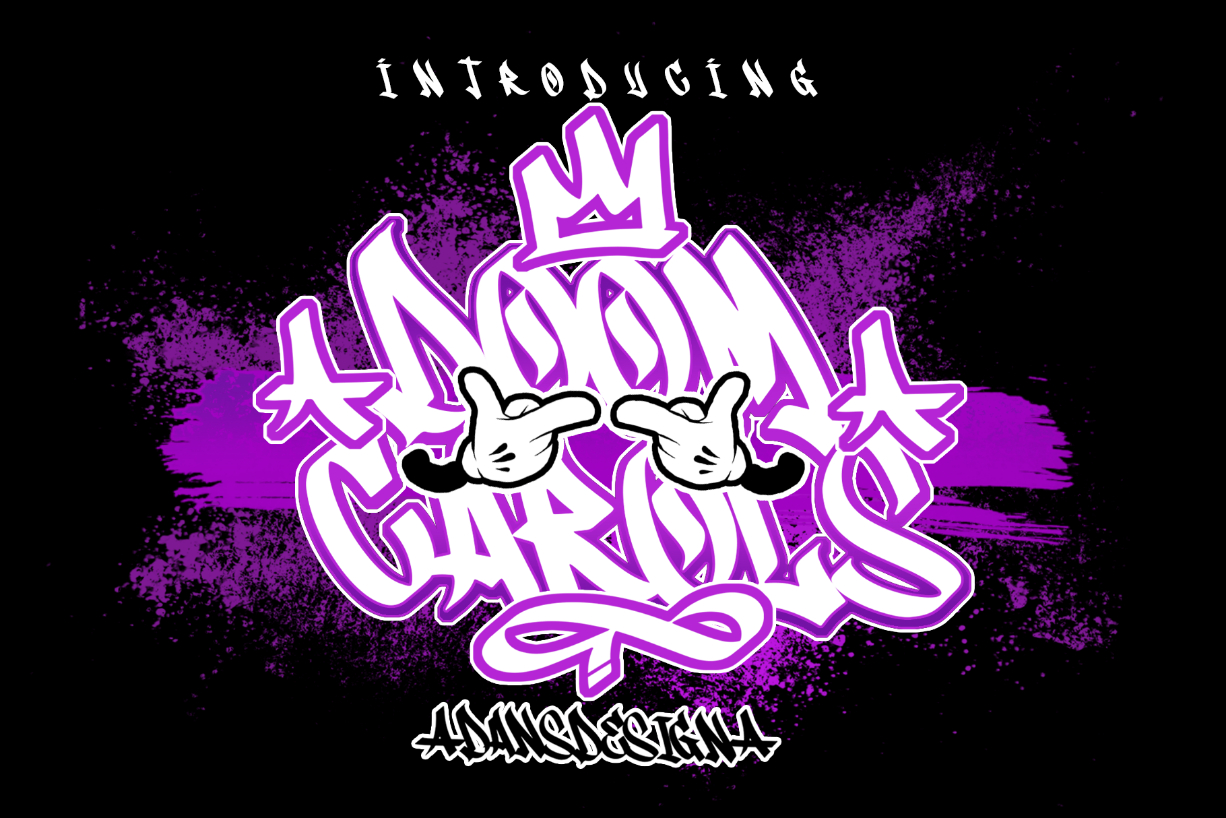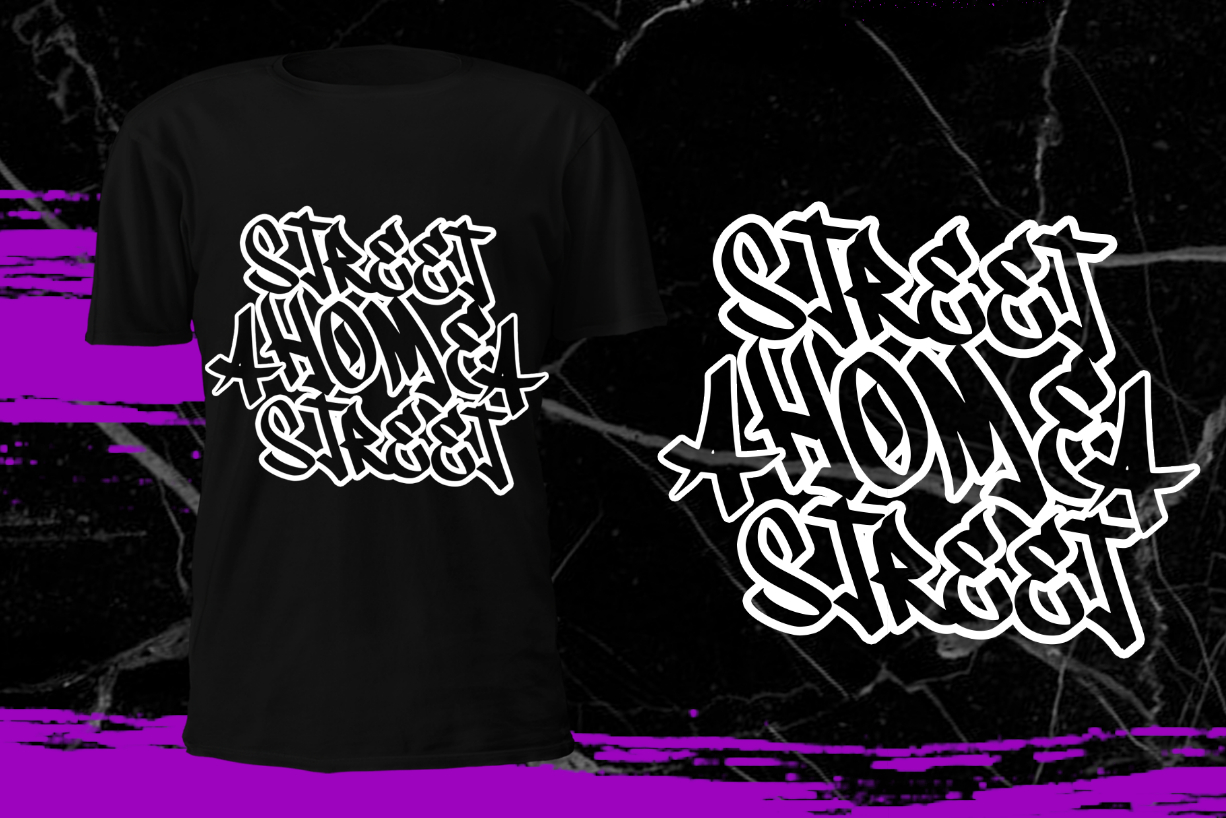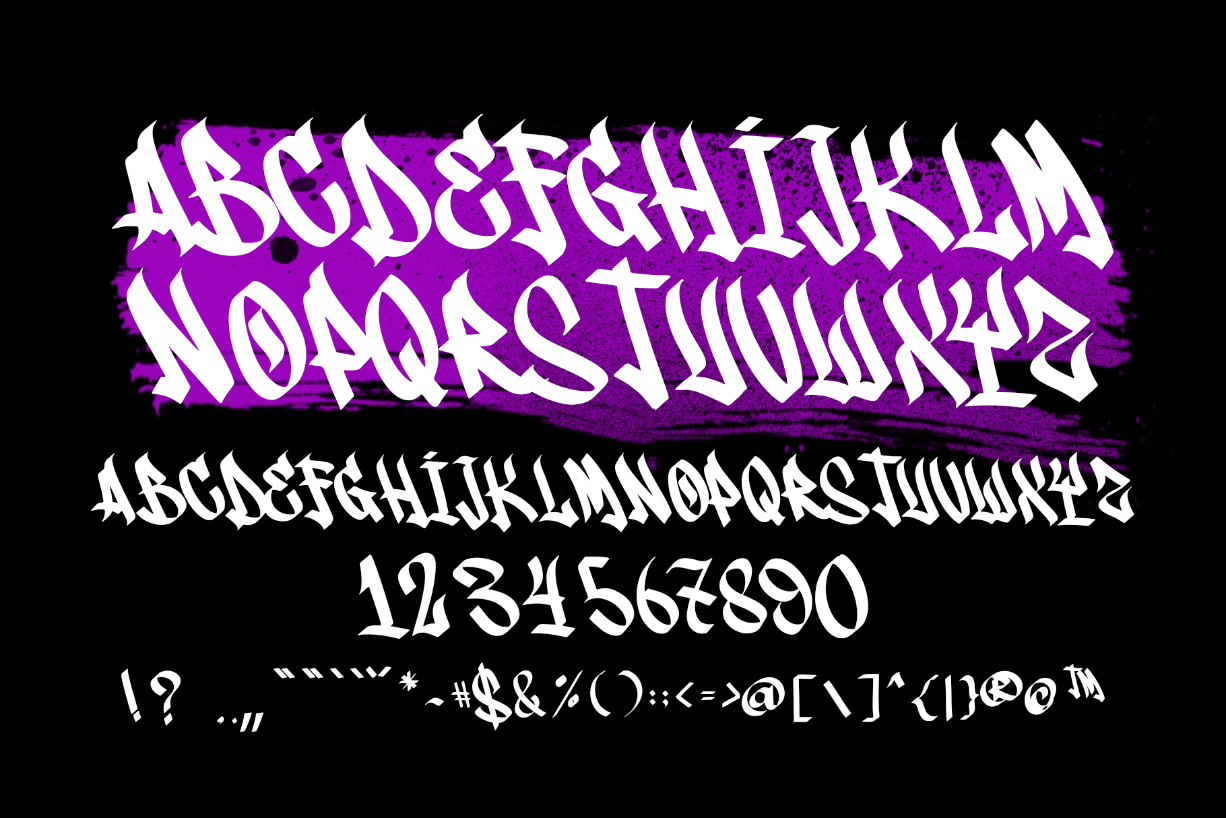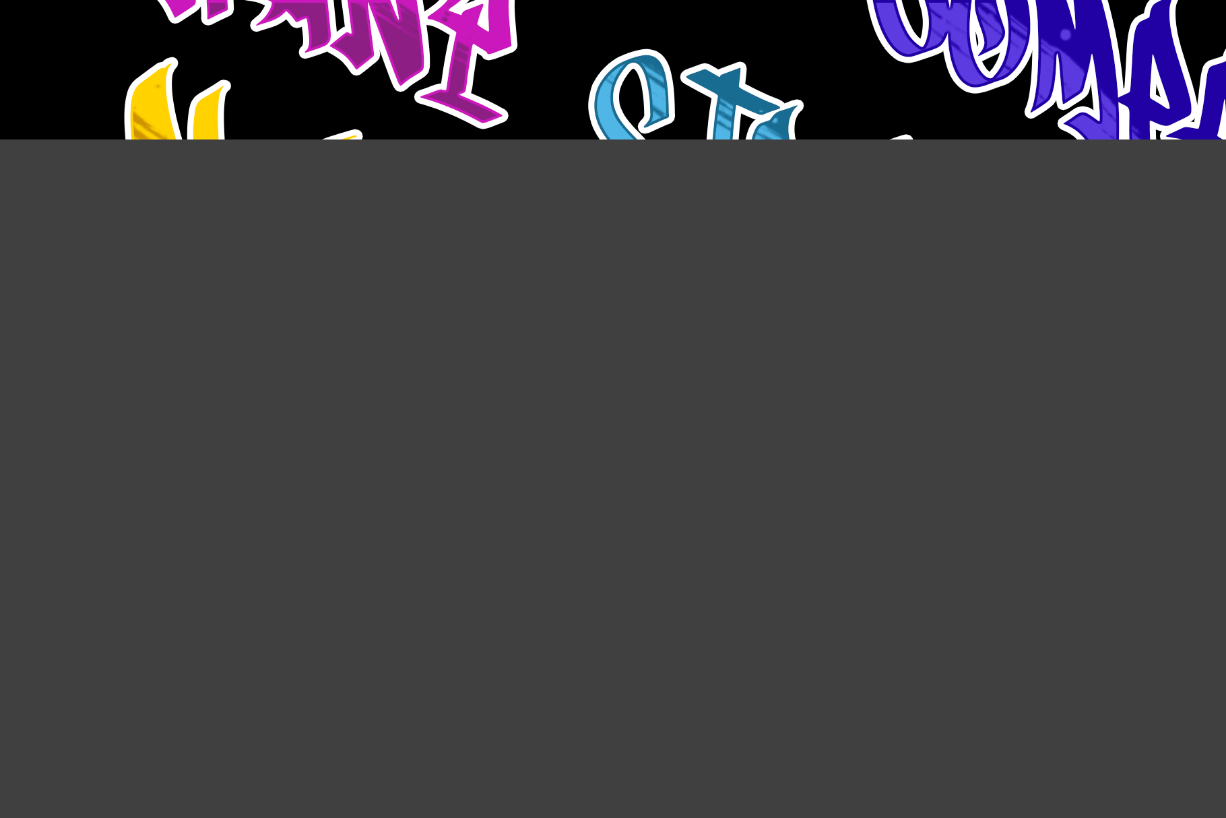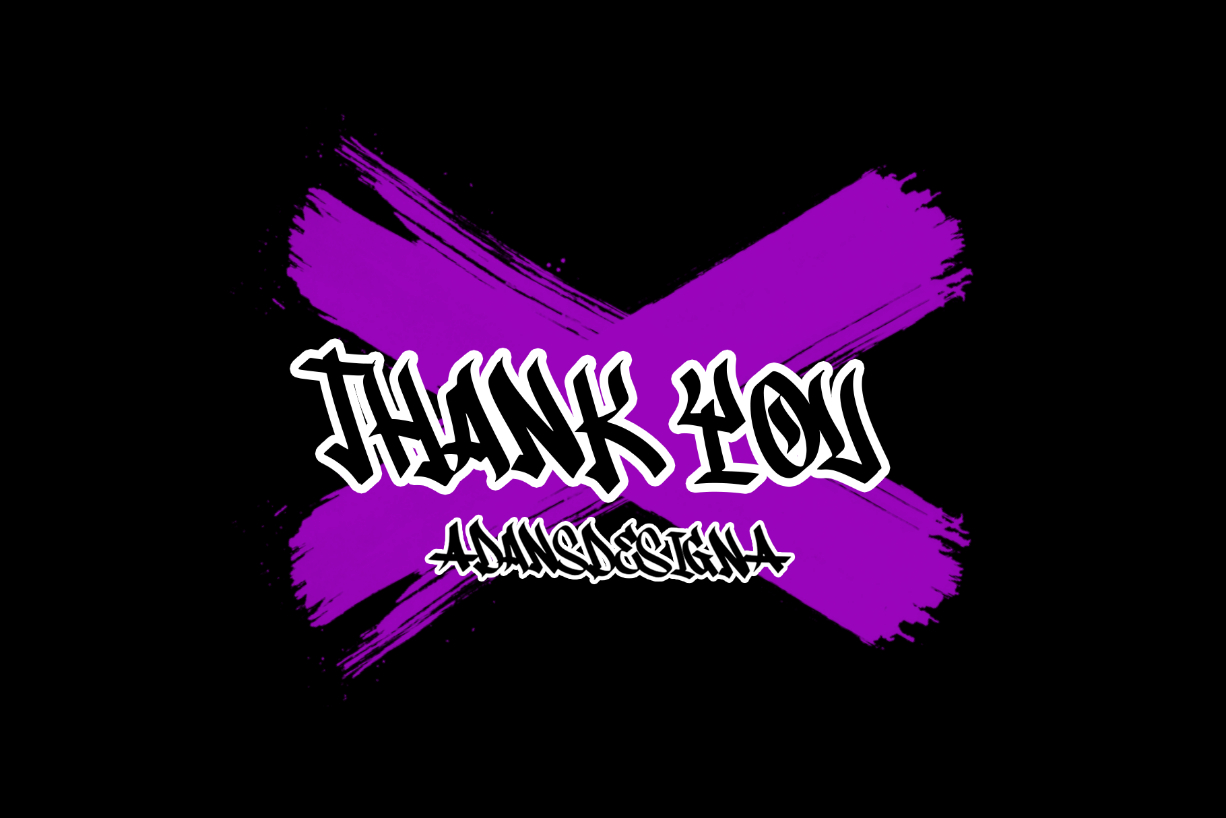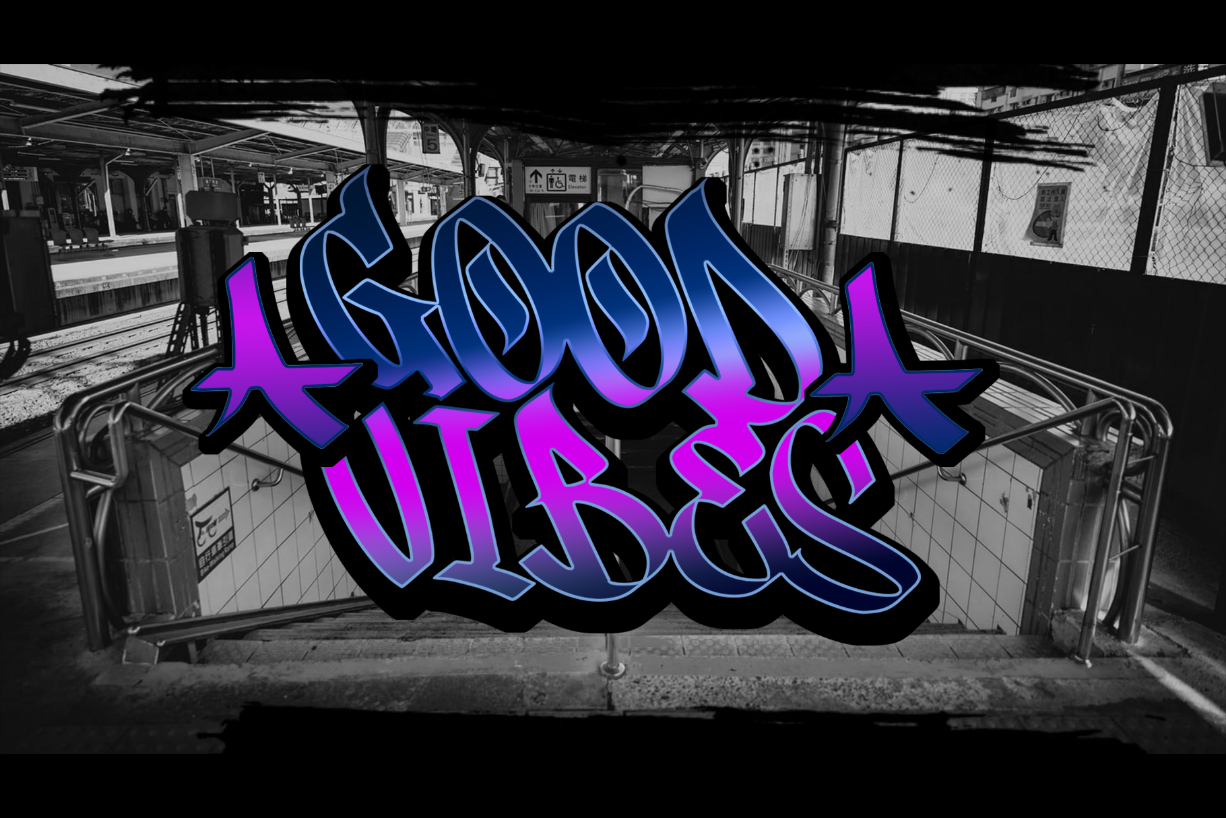
Doom Carols Font
About Doom Carols Font
Doom Carols is an assertive graffiti styled blackletter font, that features a street art vibe. This font is suitable for designs like jerseys, sportswear, skateboard and more.